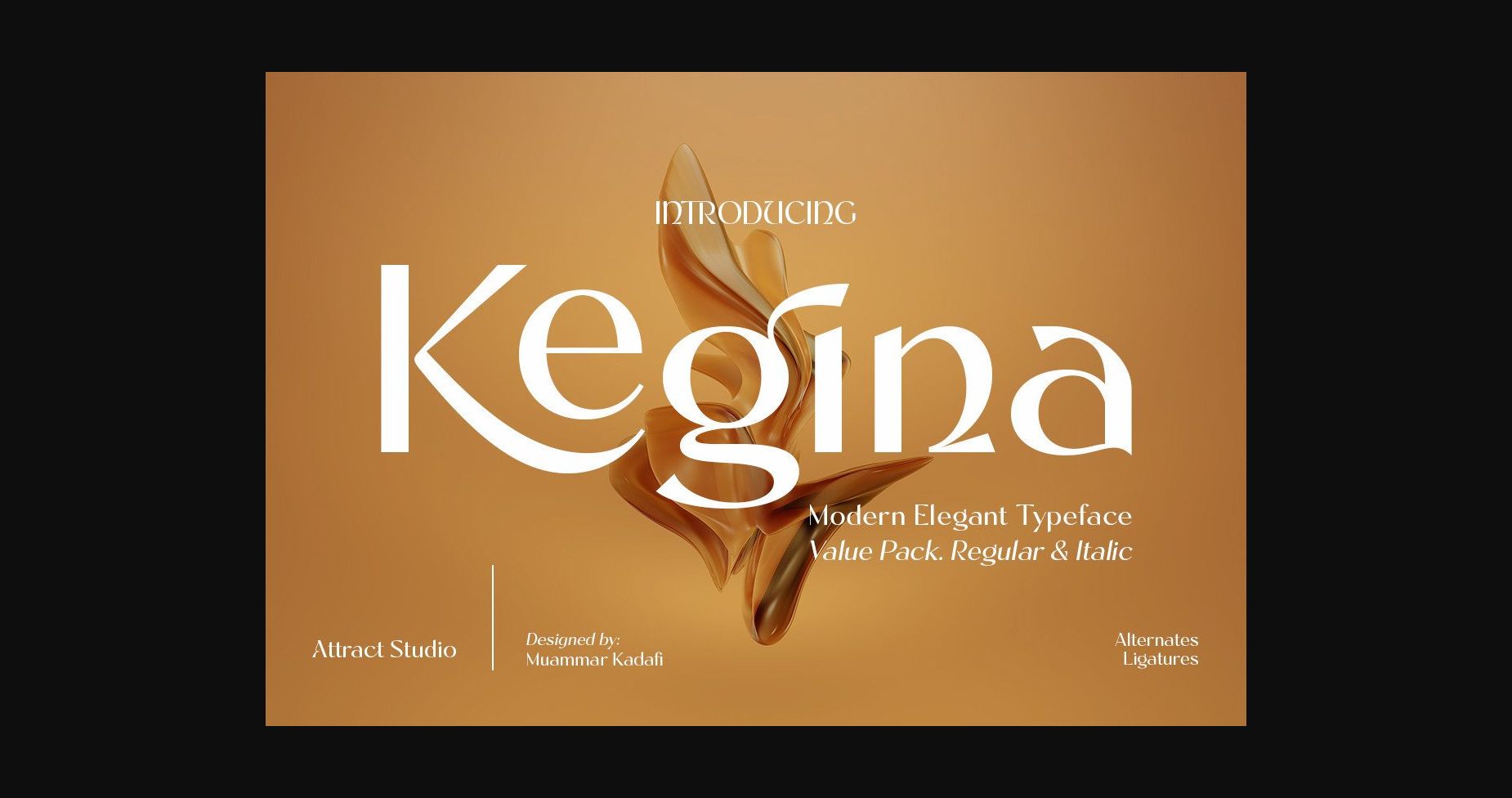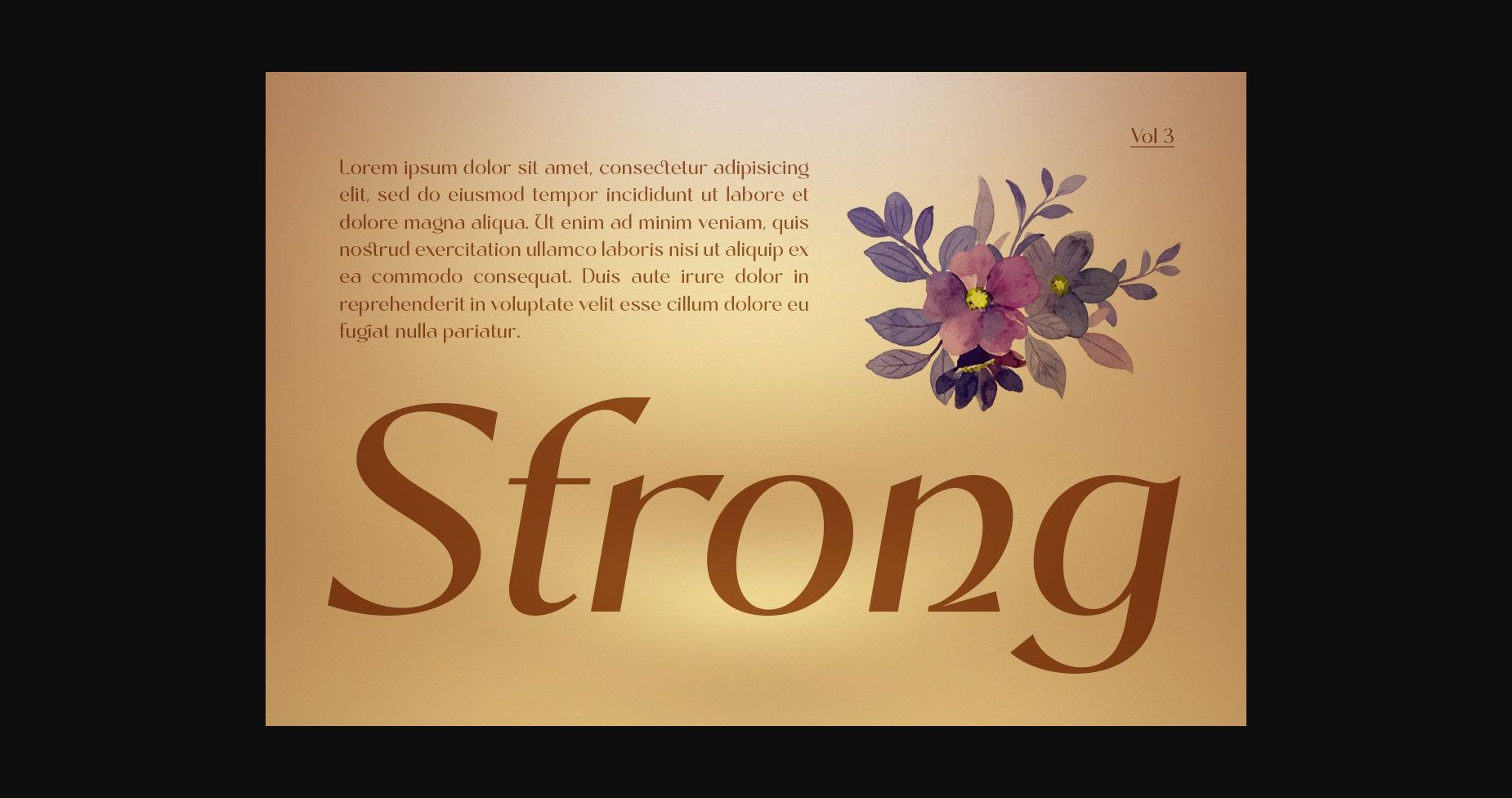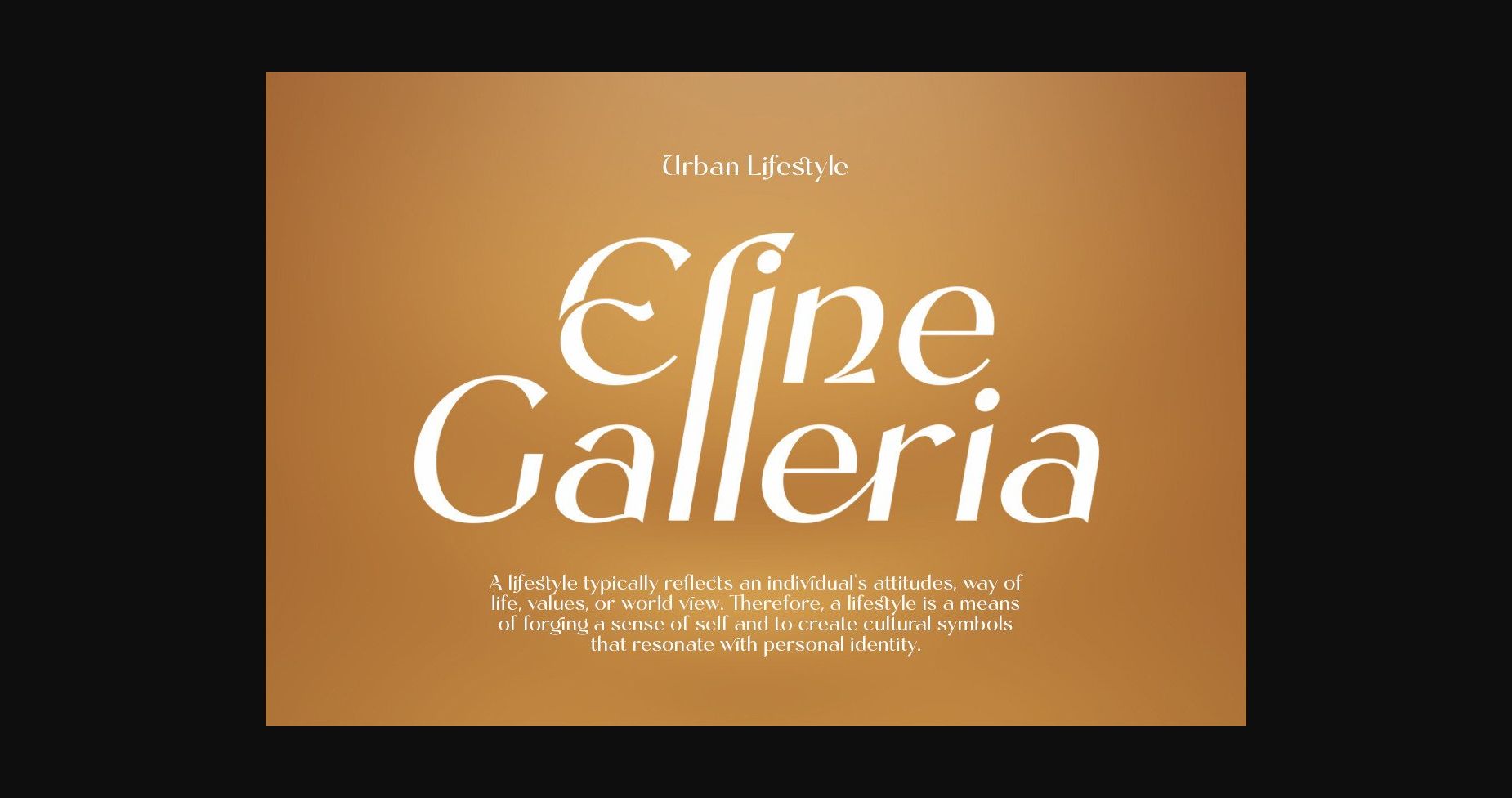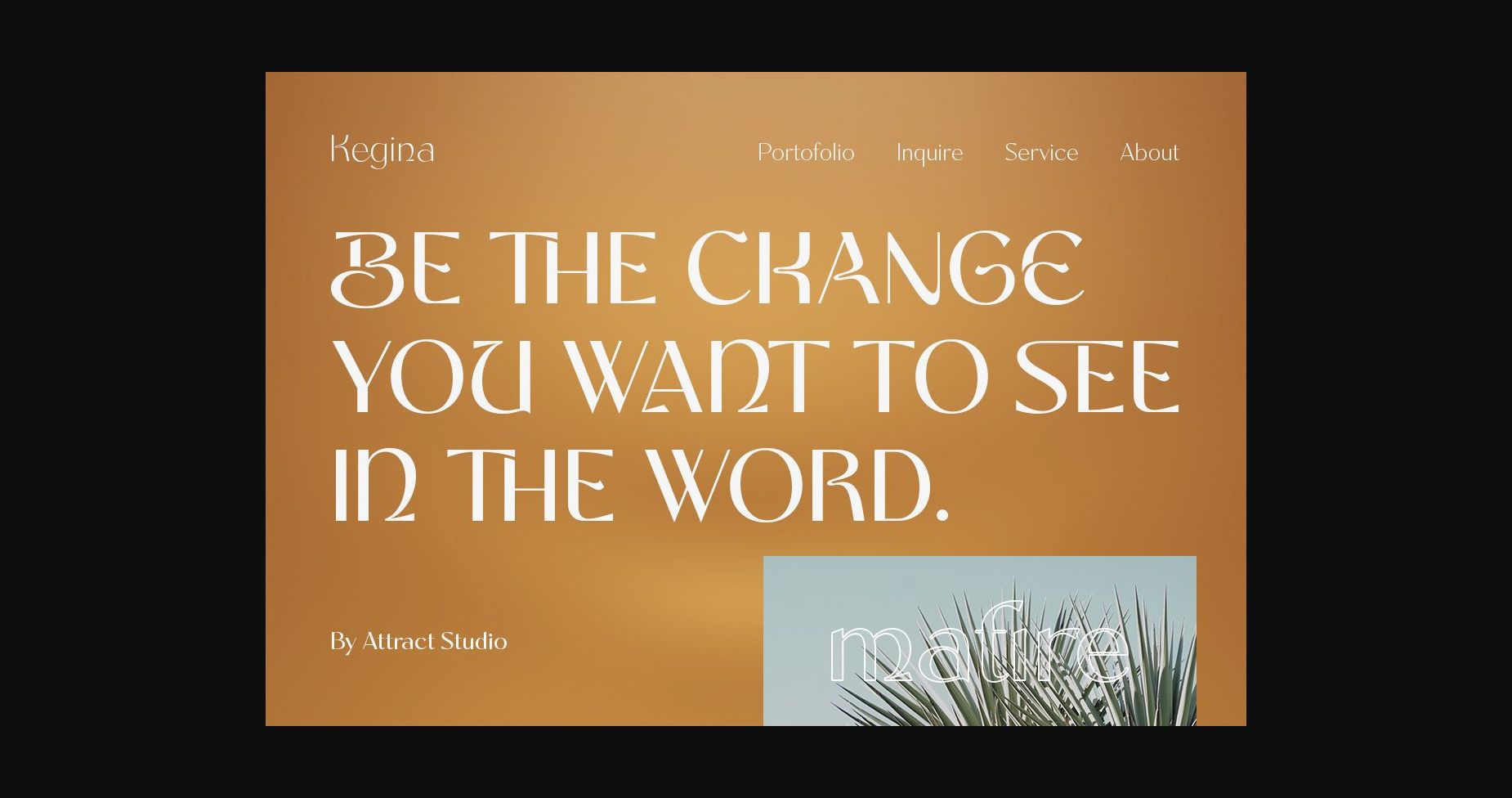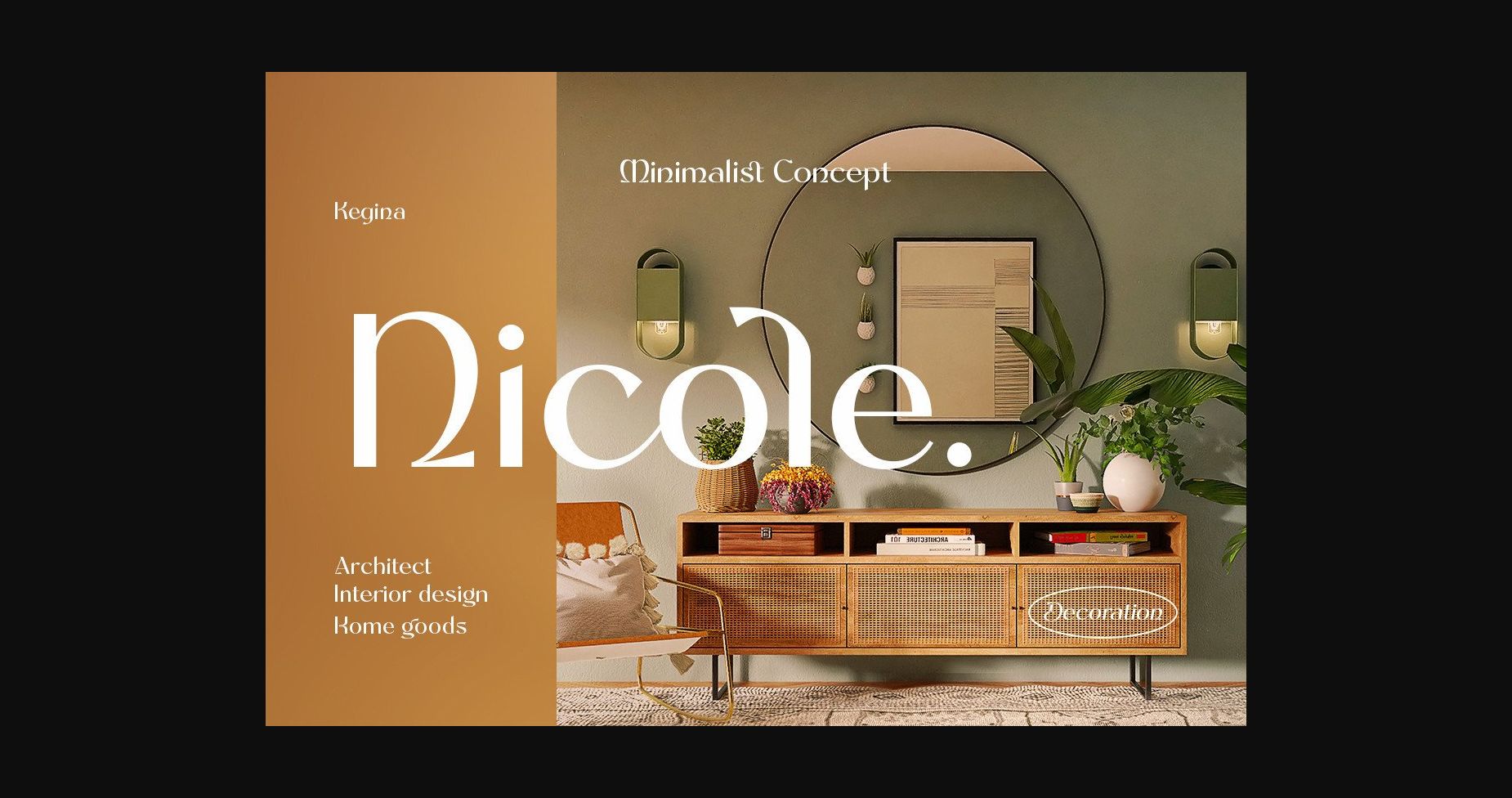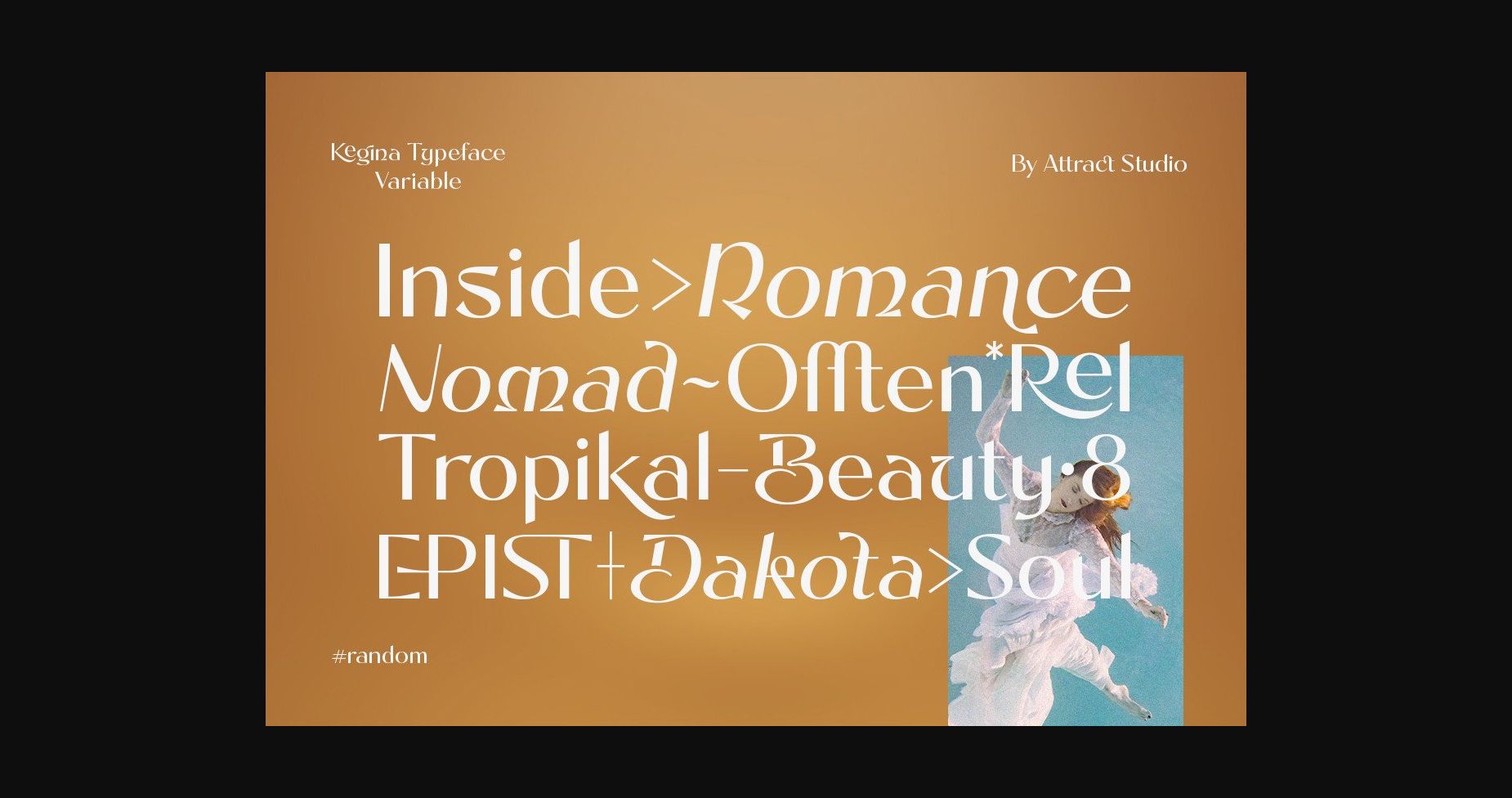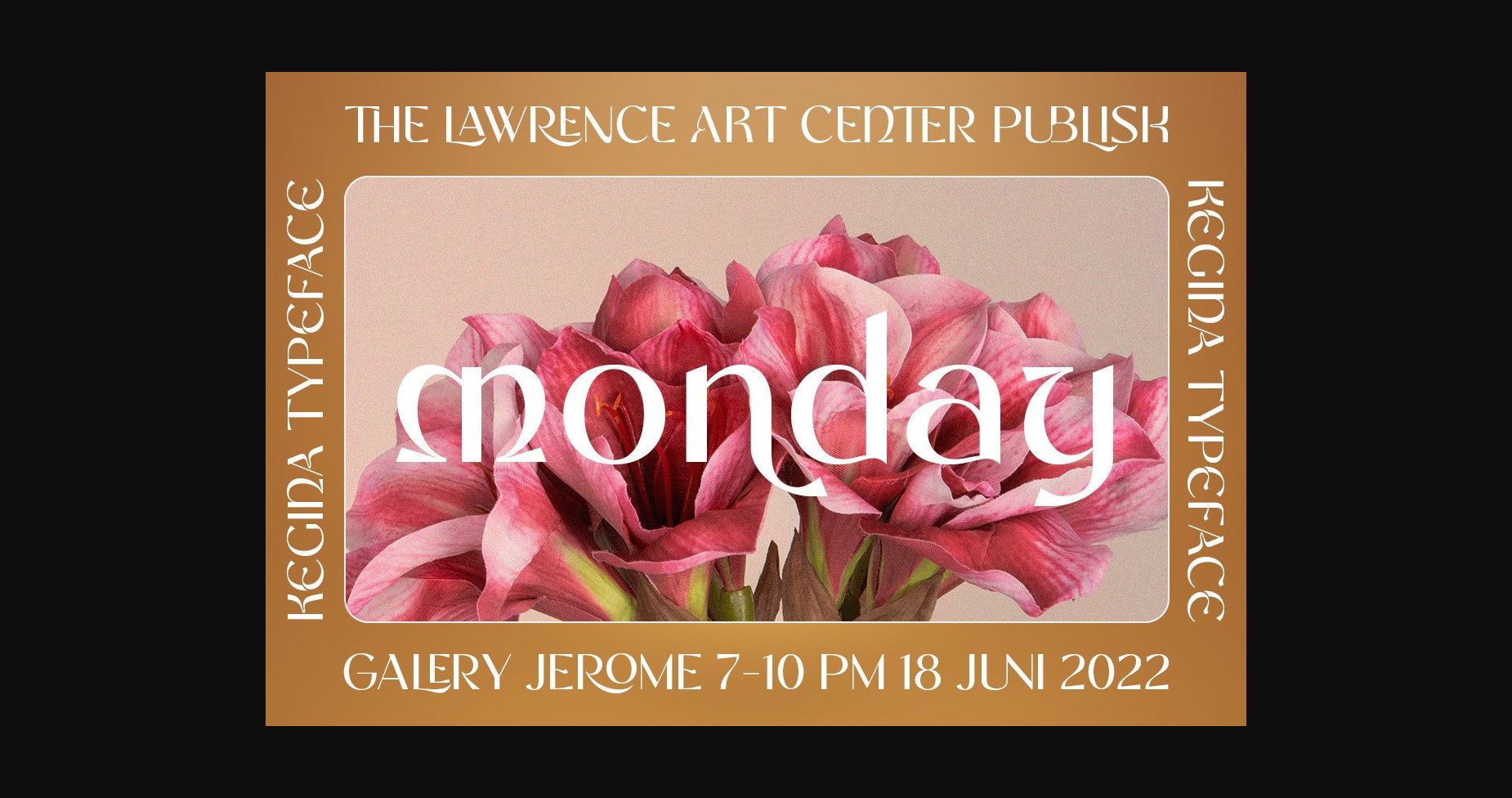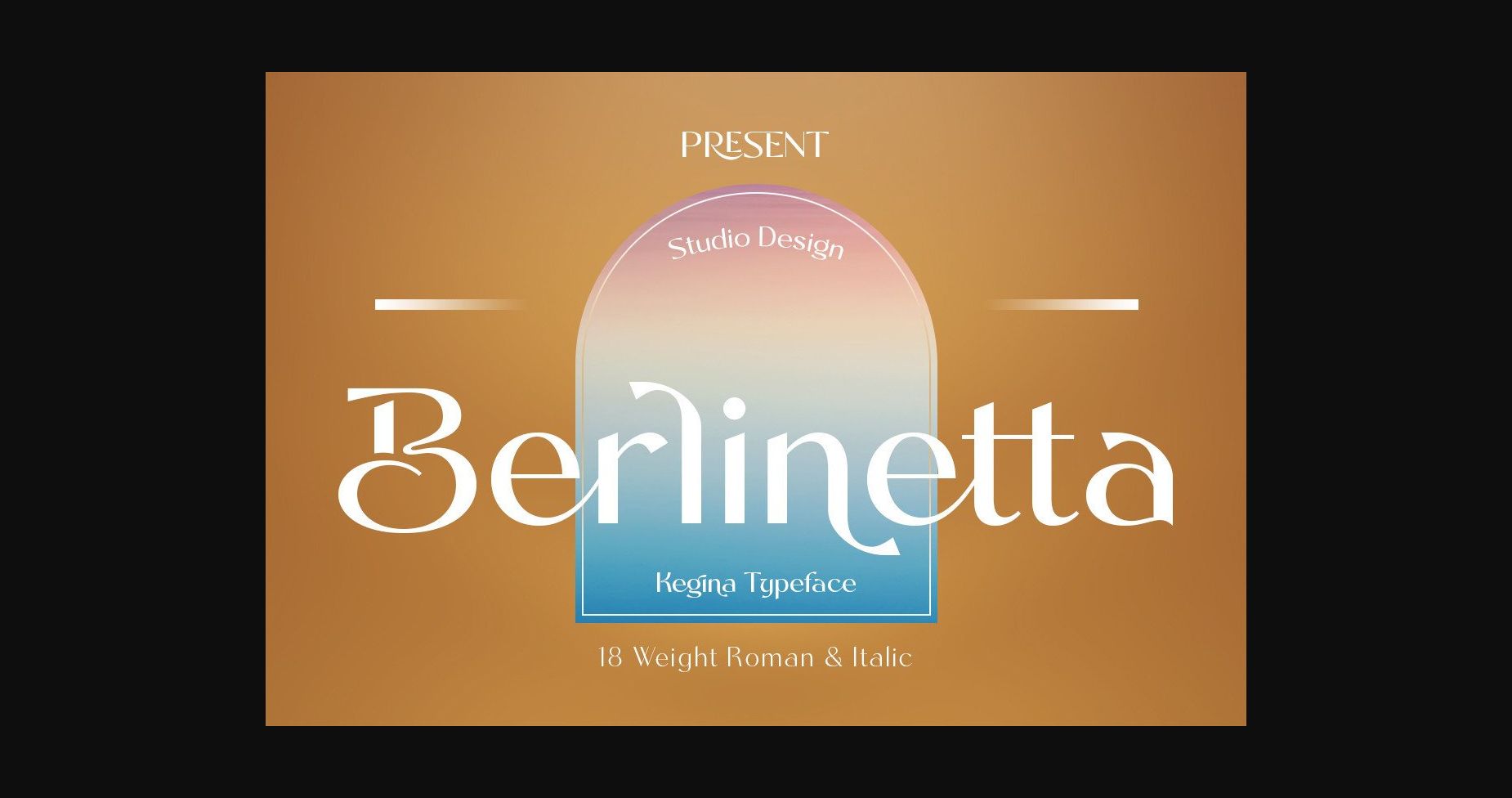
Kegina Font
About Kegina Font
Kegina is a sans serif font family with sharp curves that look clean in a minimalist look.
Kegina is equipped with a variety of attractive font alternatives and natural ligature bonds, each version of the Roman style equipped with an Italic style version to produce your extraordinary design needs.